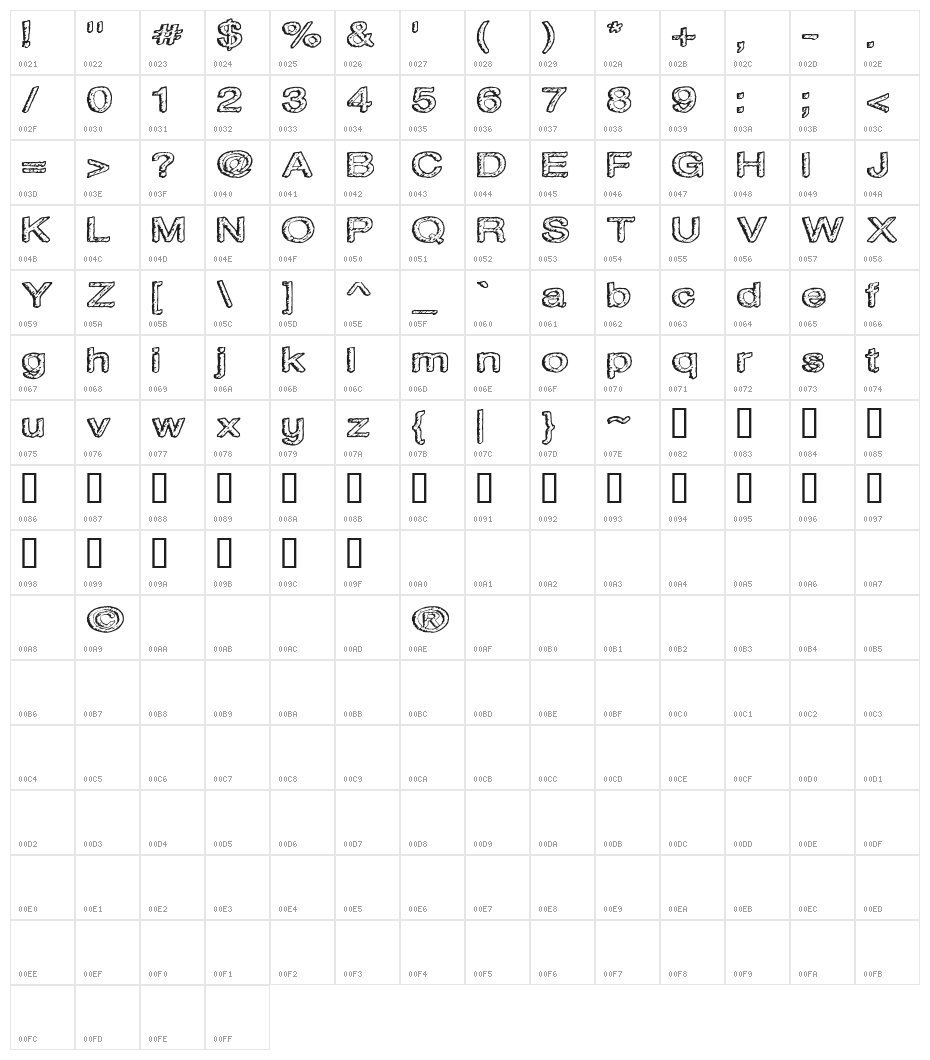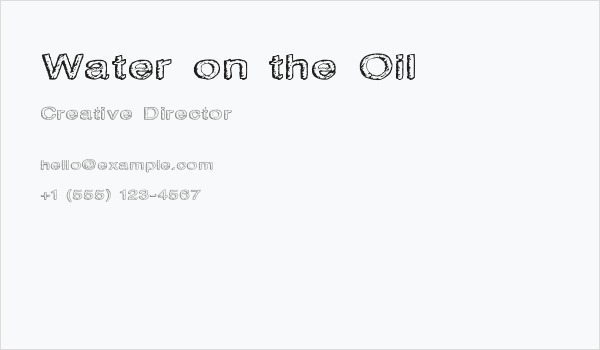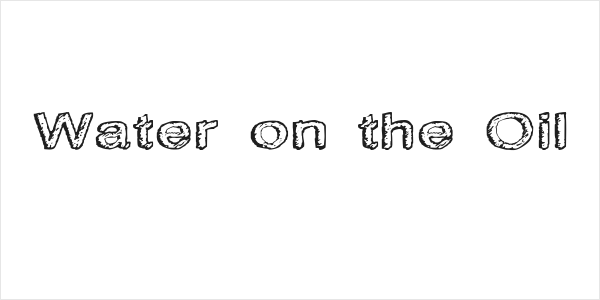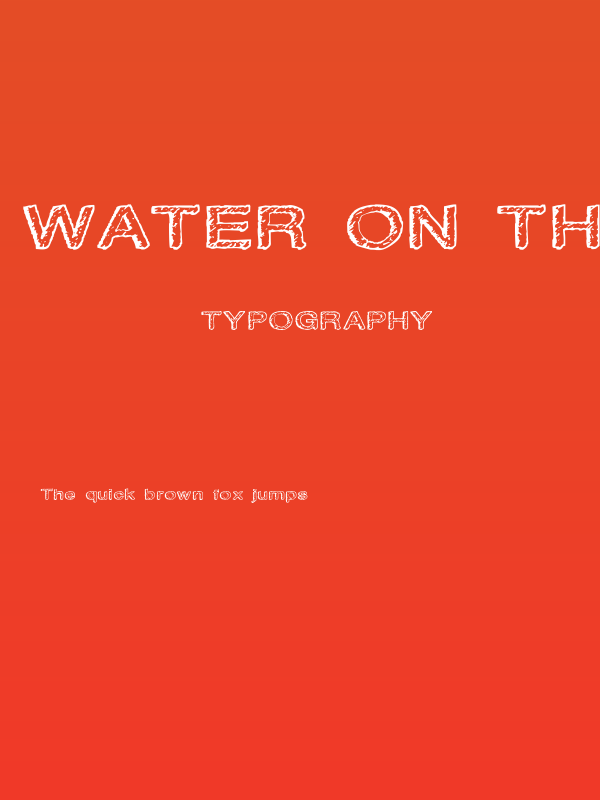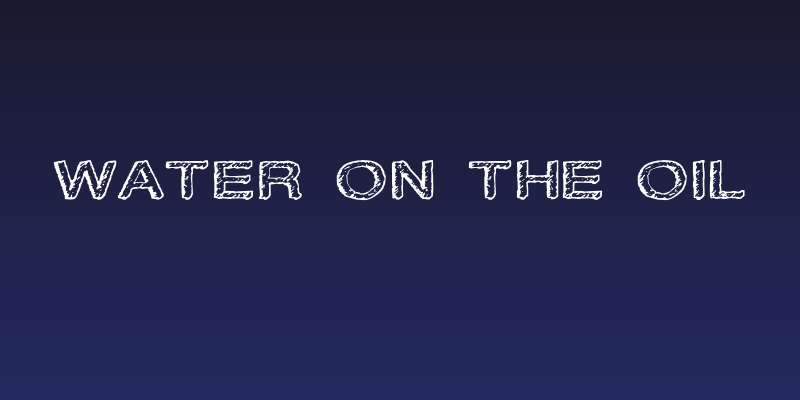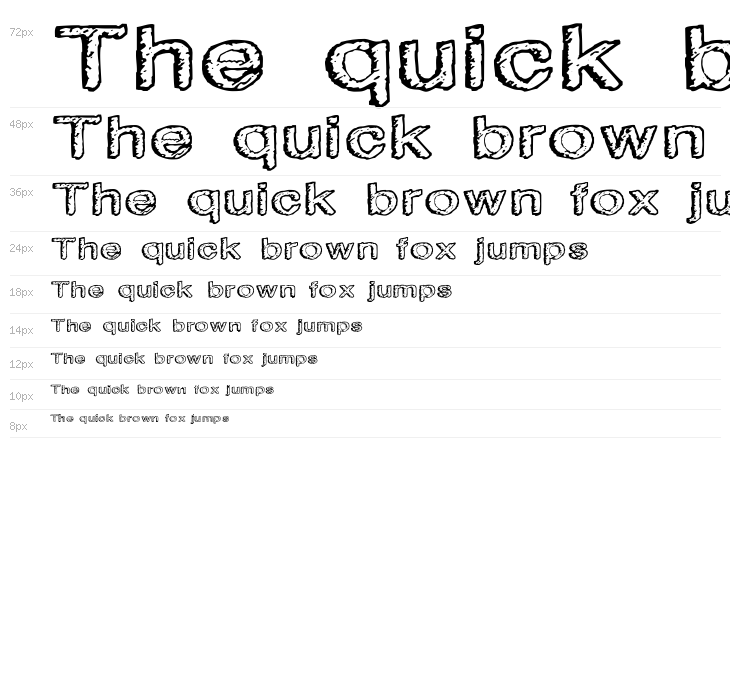
Water on the Oil Font
Water on the Oil Description
This font features a textured, distressed appearance, reminiscent of oil or water stains on paper. Each character is outlined with a bold, rough edge, giving it a rugged and organic feel. The letters are uppercase and lowercase, with numerals and a variety of special characters. The texture within each character creates a dynamic visual effect, making it stand out in any design. The font's unique style is perfect for projects that require a touch of grunge or an artistic flair. Its bold presence makes it suitable for headlines or display purposes, where it can be appreciated in larger sizes.
| Overall Style | Grunge, Artistic |
| Use Case | Headlines, Posters, Branding |
| Proposed Projects | Ideal for posters, album covers, branding for edgy products, or any design needing a grunge aesthetic. |